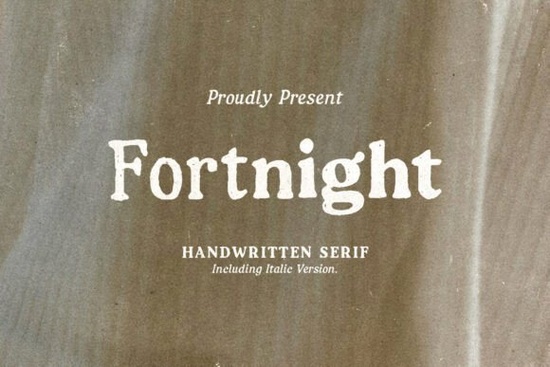
Designers, crafters, and small business owners often look for fonts that add personality to their projects. The Fortnight Font is a hand-lettered serif typeface that brings a natural, handmade feel to any design. Whether you're creating a logo, social media post, or print material, this font offers a unique touch that stands out. Its rough, organic texture makes it ideal for projects that need a personal, artisanal look.
The Fortnight Font family includes four styles: Regular, Italic, Bold, and Bold Italic. This variety gives you flexibility when working on different design elements. You can use the regular style for body text and the bold version for headings or emphasis. The italic variants add a subtle flair, perfect for titles or decorative elements. Each weight maintains the font’s signature handcrafted quality, ensuring consistency across your work.
What Makes Fortnight Font Stand Out?
Unlike many digital fonts that feel too clean or uniform, the Fortnight Font embraces imperfections. The uneven strokes and irregular shapes mimic real handwriting, giving your designs a more authentic feel. This is especially useful for brands that want to convey a sense of warmth and creativity. Whether you're designing for a boutique, a craft business, or a personal project, this font adds a human element that other typefaces might lack.
How to Use the Fortnight Font Effectively
One of the best ways to use the Fortnight Font is in combination with simpler typefaces. Pairing it with a sans-serif font can create a balanced design that’s both readable and visually interesting. For example, using the Bold style for headlines and a clean sans-serif for body text can make your content more engaging. This approach works well for posters, banners, and social media graphics.
Another tip is to experiment with color and spacing. The rough texture of the font can be enhanced by using contrasting colors or adding subtle background elements. Don’t be afraid to play with different layouts sometimes a little randomness can lead to the most creative results. Just make sure the text remains legible, especially in smaller sizes.
Best Uses for the Fortnight Font
- Logo Design: Add a handmade touch to your brand identity.
- Print Materials: Perfect for business cards, flyers, and packaging.
- Social Media Posts: Make your content stand out with a unique visual style.
- Craft Projects: Ideal for handmade goods or custom prints.
The Fortnight Font is also a great choice for print-on-demand sellers who want to offer products with a personal, artistic feel. Its versatility allows it to fit into various design contexts without losing its character. Whether you’re working on a digital or physical project, this font can help you achieve a more authentic look.
When choosing a font for your next project, consider how it aligns with your overall design vision. The Fortnight Font is not just a typeface it’s a tool for expressing creativity and individuality. With its natural, handcrafted look, it can bring a fresh perspective to your work. Whether you're a designer, a crafter, or a small business owner, this font offers a way to add personality to your designs without overcomplicating the process.
Before finalizing your design, test the font in different sizes and formats to ensure it works well in all contexts. Keep your audience in mind and choose a style that complements your message. With the right approach, the Fortnight Font can become a valuable addition to your design toolkit.